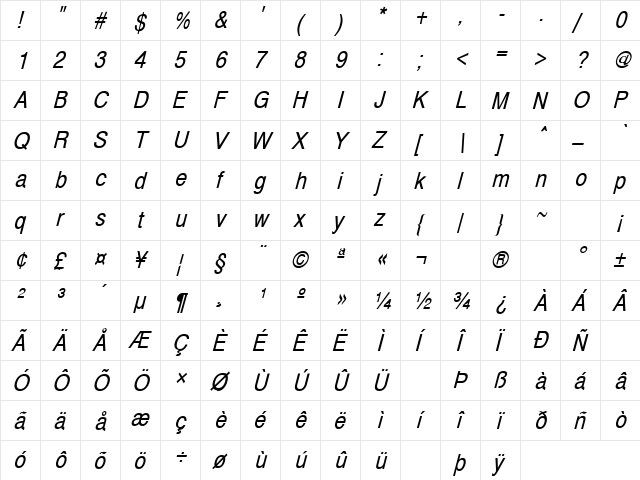
Communication 18 Regular Font Preview
Communication 18 Regular
Communication 18 Regular Font Details
Design Context for Communication 18 Typeface
Communication 18 offers clean, dependable letterforms without strong stylistic allegiance, making it a practical choice for designers who need flexibility.